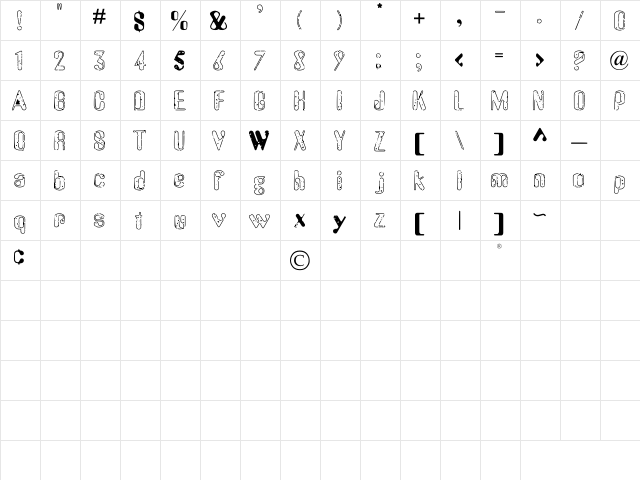
Old & Messy Regular
Design Context for Old & Messy Typeface
Old & Messy is a composed and adaptable typeface that performs quietly and consistently across a wide range of design contexts.